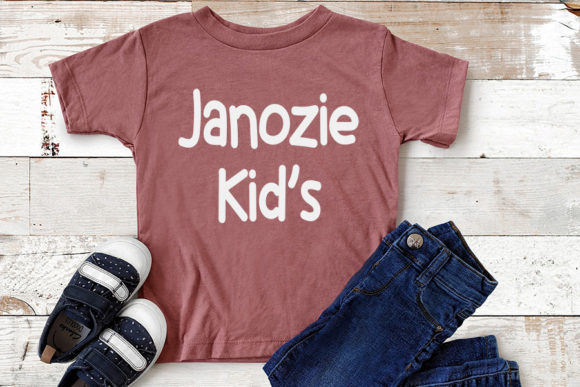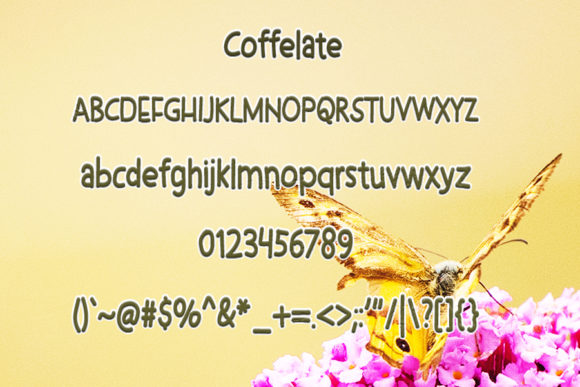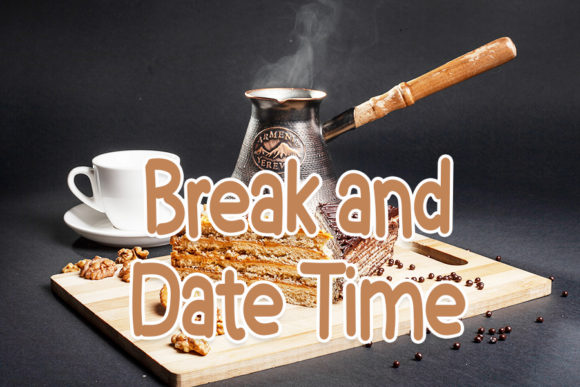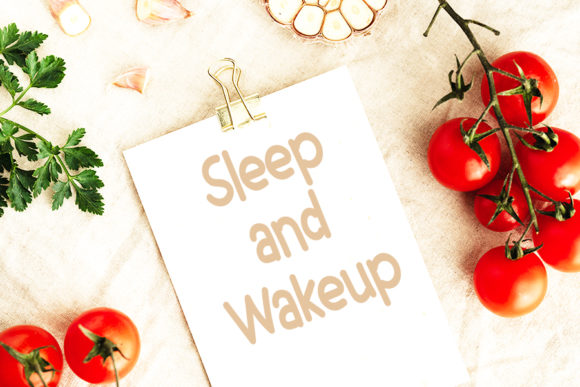
Unlock the Magic of Your Designs with the Coffelate Font
Have you ever stared at a blank canvas, trying to come up with the perfect font to match your creative vision? You’ve scrolled through countless options, but nothing seems to capture the essence of your design. That’s when you stumbled upon the perfect companion – the Coffelate Font. This charming display font is designed to bring a touch of warmth and personality to your projects.
The Coffelate Font is a versatile tool that will add a dash of fun and whimsy to your designs. Its clean and simple design makes it an ideal choice for a wide range of creative projects, from branding and advertising to digital art and typography. Whether you’re a seasoned designer or just starting out, the Coffelate Font is a valuable asset that will help you elevate your work and stand out from the crowd.
Coffelate Font Key Features
- Font Family: Coffelate Font comes in 3 font styles: Regular, Italic, and Bold. Each style is available in 7 weights.
- Unique Characteristics: Coffelate Font features a unique blend of modern and vintage elements, with distinctive letterforms and subtle flourishes.
Coffelate Font Review
Overall, I found Coffelate Font to be a decent addition to any typography collection, but with some notable limitations. Let’s dive into what works well and what doesn’t.
- Unique and creative style: Coffelate Font brings a fresh, modern vibe to your designs.
- Highly legible: The font’s clean lines and even spacing make it easy on the eyes.
- Good for headings: Coffelate Font shines when used for headings, adding a touch of sophistication.
- Limited character set: The font’s character set is somewhat limited, which may cause issues for non-English languages.
- Not ideal for body text: While legible, Coffelate Font may not be the best choice for large blocks of text due to its relatively narrow width.
Overall, Coffelate Font is a great choice for projects that require a unique, modern aesthetic. However, its limitations mean it may not be the best fit for every design scenario.
Tips for Getting the Most Out of Coffelate Font
Use Coffelate Font for titles, headings, and emphasis to create visual interest.
Pair Coffelate Font with other fonts to create a unique and eye-catching design.
Experiment with different font sizes, colors, and styles to achieve the desired effect.
Common Use Cases for Coffelate Font
Coffelate Font is ideal for creative projects, such as:
Posters, flyers, and brochures
Business cards and letterheads
Inf
Alternatives to Coffelate Font
Lato Font is a modern sans-serif font that is highly legible and versatile. It is suitable for a wide range of applications, including body text, headings, and titles. Lato Font is more geometric and clean compared to Coffelate Font, making it ideal for digital products and websites.
Abril Fatface Font
Abril Fatface Font is a beautiful, elegant serif font that is perfect for creating a sophisticated and luxurious feel. It is best used for titles, headings, and other decorative elements. Abril Fatface Font is more ornate and traditional compared to Coffelate Font, making it ideal for high-end branding and marketing materials.